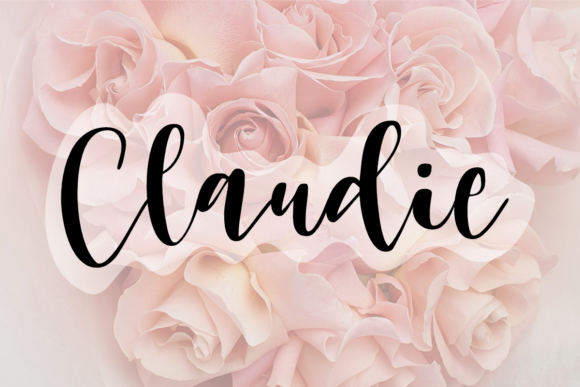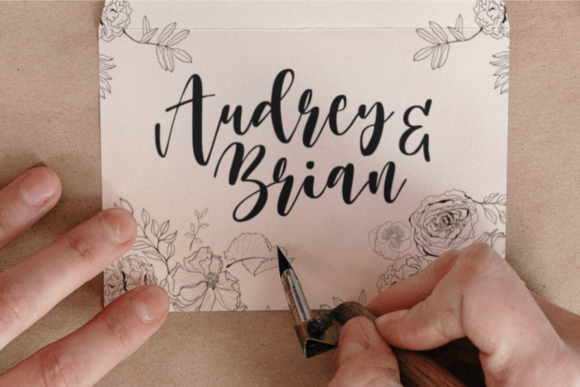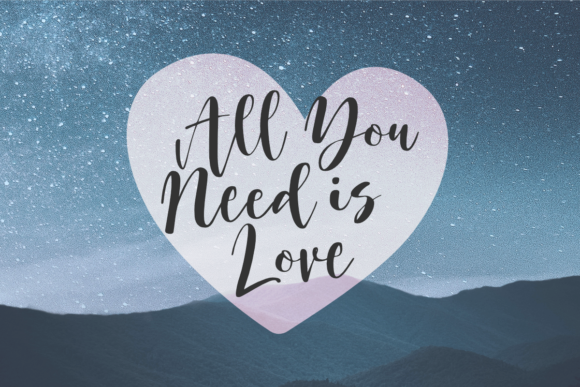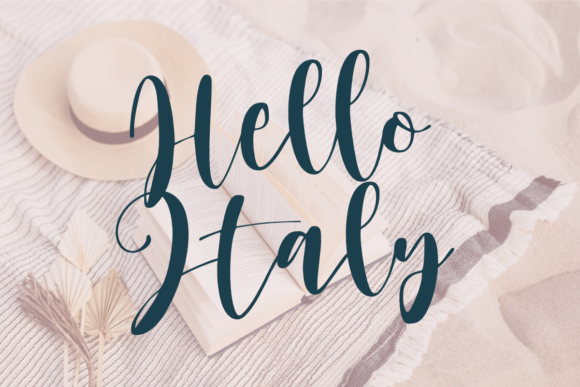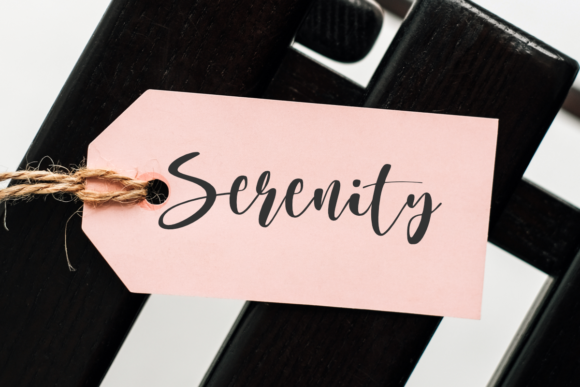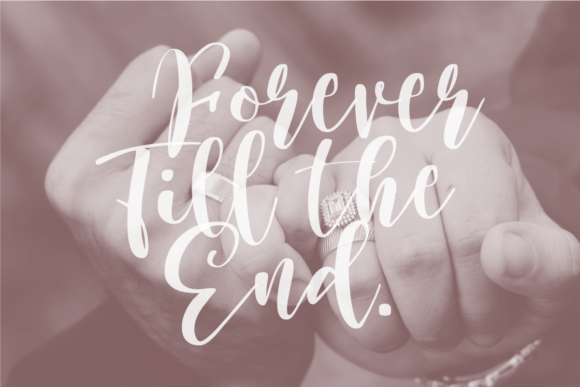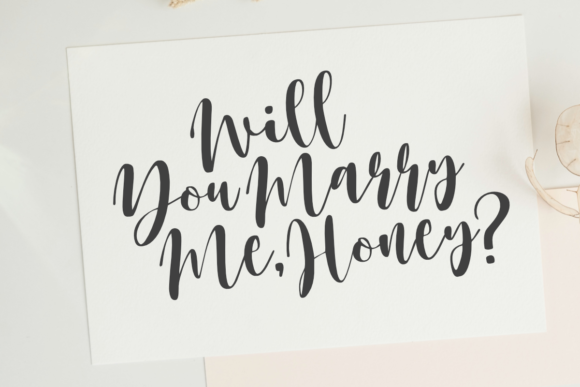
Claudie Font
About Claudie Font
Claudie is a fun handwritten font suitable for wedding invitations, logotype, and product branding. Fall in love with its authentic and romantic feel, and use it to create outstanding designs!